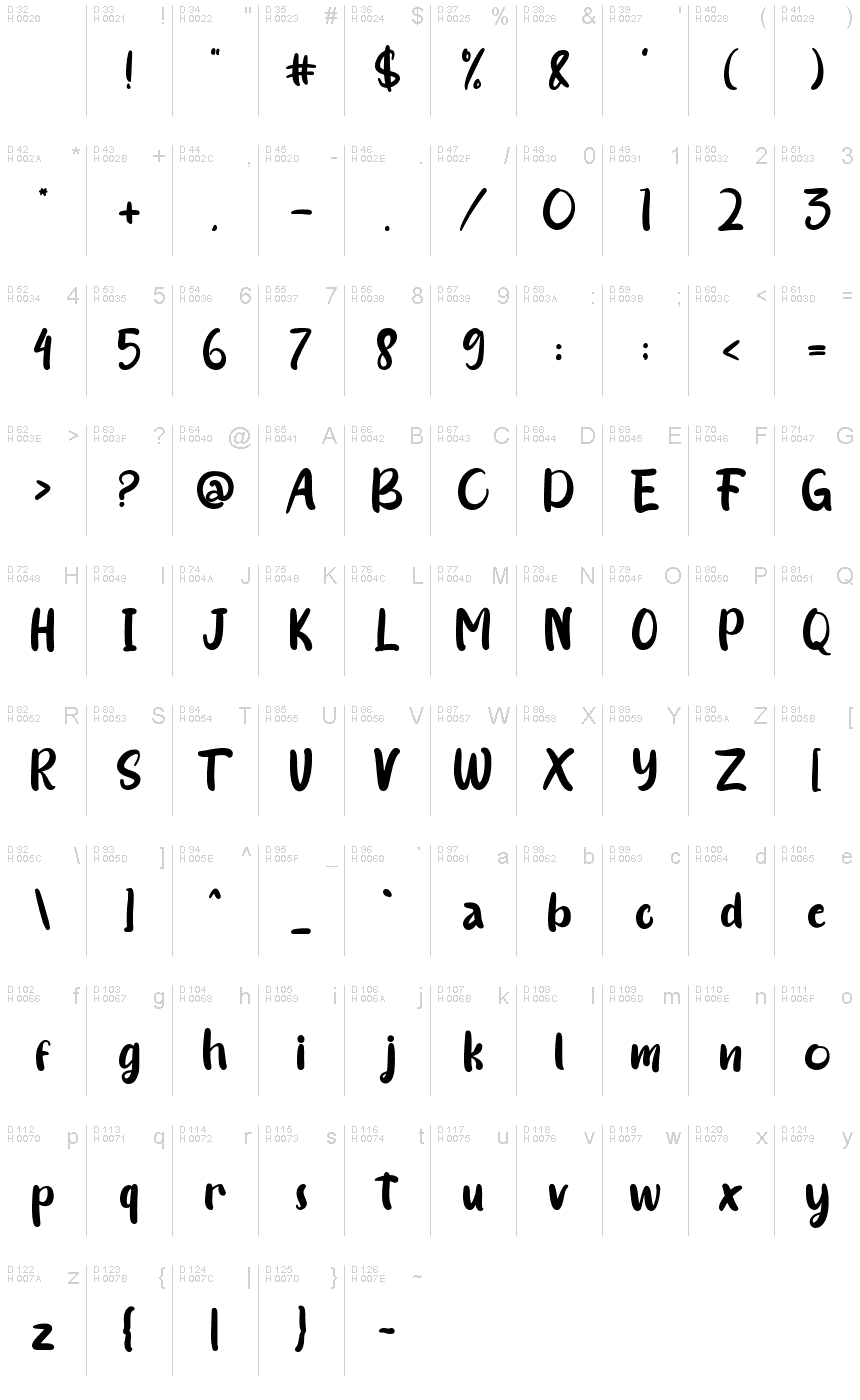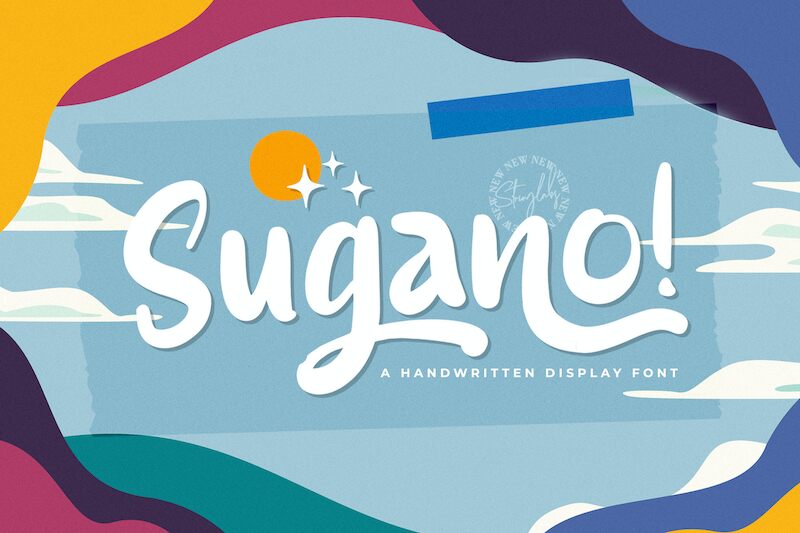
Sugano
Sugano, a wide handwritten font designed by Virgiawan Listanto, is perfect for crafting unique and eye-catching designs. It's ideal for creating greeting cards, branding projects, and unique logos.